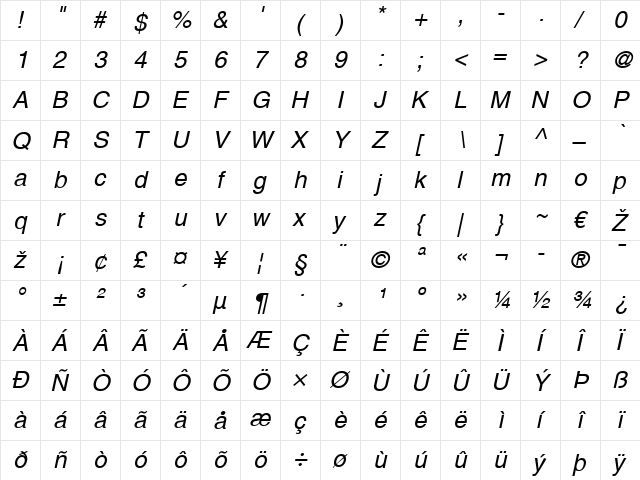
Helvetica LT Italic
Helvetica LT takes a measured approach to typography — its balanced proportions and neutral character make it a reliable workhorse for both digital and print work. The dynamic lean of this cut emphasises speed and emphasis in any layout. Its slender proportions lend an understated elegance to any composition.
Pro Tip: Use Helvetica LT for emphasis, pull quotes, and subheadings where its slanted energy can add rhythm to the layout.